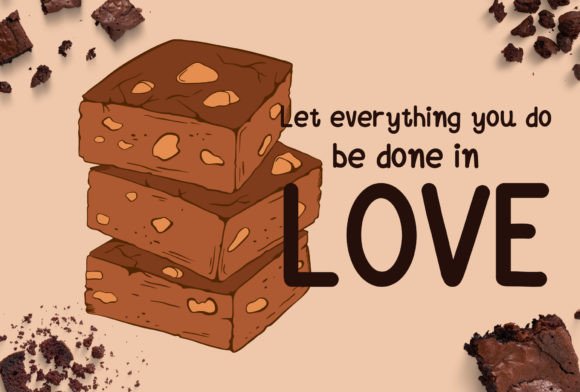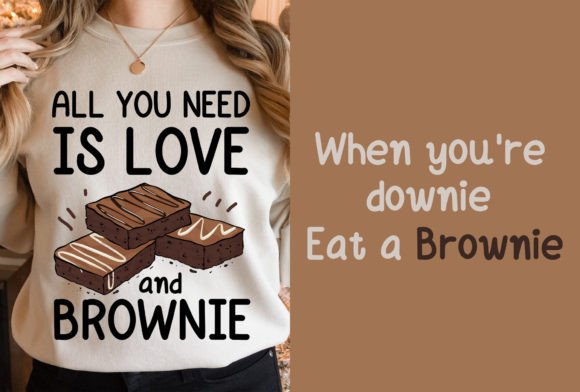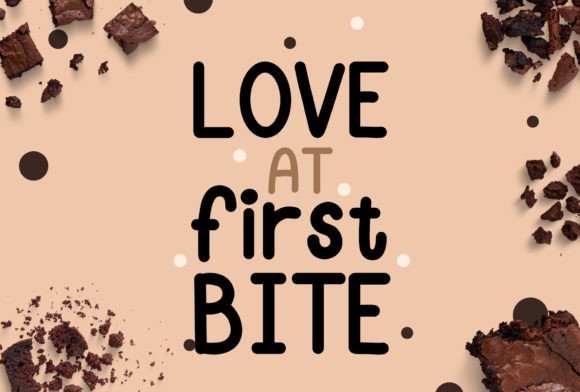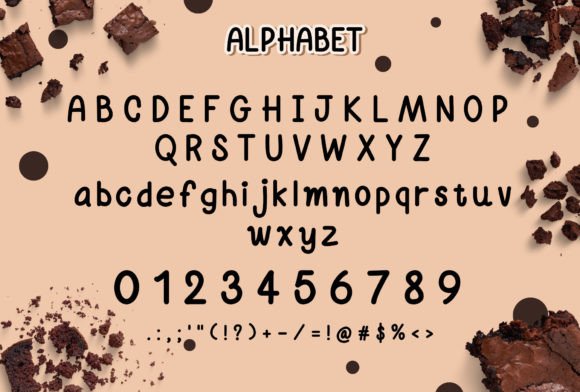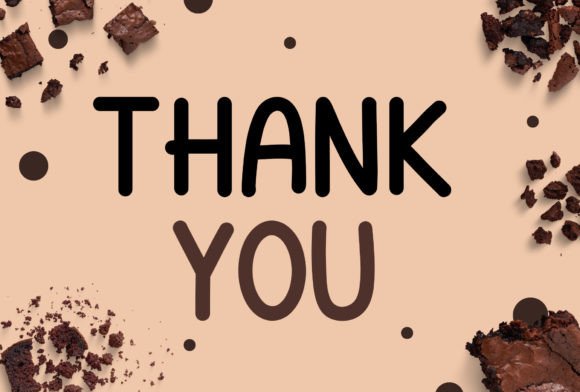
The Sweetest Design Element You’ll Ever Meet
Imagine you’re at a bakery, surrounded by the sweet aroma of freshly baked cookies and the sound of happy chatter. You’re inspired to create something that captures the essence of this delightful moment – something that screams ‘yum!’ and ‘fun!’ That’s when you turn to the perfect font: Browney Font. This charming font is designed to evoke feelings of sweetness and deliciousness, making it the ideal choice for designs, logos, branding, and packaging.
As a designer, you’re always on the lookout for the perfect tool to bring your creative vision to life. That’s where Browney Font comes in – a flexible and easy-to-use font that’s perfect for a wide range of projects. Whether you’re designing for kids or adults, this font is sure to add a touch of whimsy and charm to your work.
Browney Font Key Features
- Font Family: Browney is a sans-serif font family designed for modern and clean typography.
- Character Count: The Browney font family includes 250+ glyphs, including Latin, Cyrillic, and Greek alphabets, as well as punctuation and special characters.
- Unique Characteristics: Browney features a unique blend of geometric and organic shapes, resulting in a distinctive and modern aesthetic.
Browney Font Review
First of all, I want to start with the good stuff. The Browney Font is a solid choice for any designer looking for a warm and inviting aesthetic. ✨ The font’s rounded edges and subtle texture give it a cozy feel that’s perfect for branding and packaging. ✨ The Browney Font is also surprisingly versatile, working well in a variety of contexts from food and beverage to home decor and lifestyle. ✨
Now, let’s talk about the limitations. ⚠️ One of the main issues I have with the Browney Font is its limited character set. ⚠️ It’s not uncommon for designers to run into issues when trying to typeset complex content, especially when it comes to special characters and symbols. ⚠️ Additionally, the font’s rounded edges can sometimes make it difficult to read, especially at smaller font sizes. ⚠️
Overall, I’d say the Browney Font is a great choice for designers who are looking for a warm and inviting aesthetic. While it may not be the most versatile font out there, it’s definitely worth considering for the right project. Just be sure to keep its limitations in mind and use it wisely.
Design Considerations
- Use the Browney Font for branding and packaging where a warm and inviting aesthetic is desired.
- Avoid using the Browney Font for complex content or at very small font sizes.
- Consider using a more traditional serif font for body text to balance out the rounded edges of the Browney Font.
Browney Font Practical Application Guide
Getting the Most Out of Browney Font
For optimal results, use Browney Font in conjunction with other design elements that complement its unique characteristics.
Experiment with different font sizes, colors, and styles to create a visually appealing design.
Consider pairing Browney Font with other sans-serif fonts for a clean and modern look.
Browney Font is ideal for:
1. Fashion and lifestyle branding
2. Food and beverage packaging
3. Digital product design
Q: Is Browney optimized for digital use?
Yes, Browney is optimized for digital use and is designed to be clear and readable at various font sizes and resolutions. It includes advanced features such as ligatures, kerning, and OpenType features to ensure a smooth and professional-looking experience.